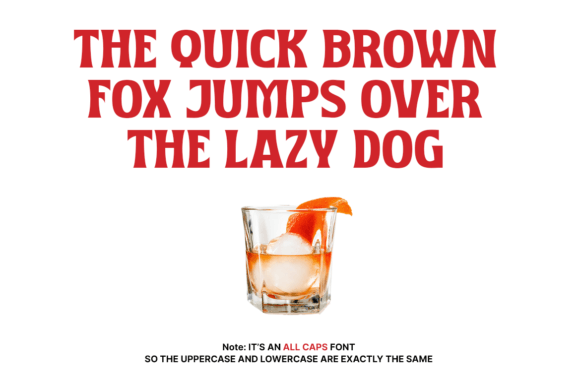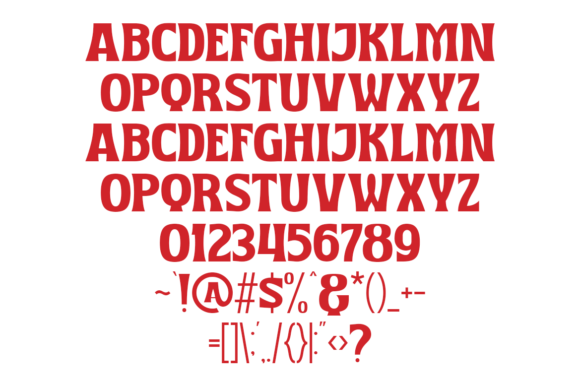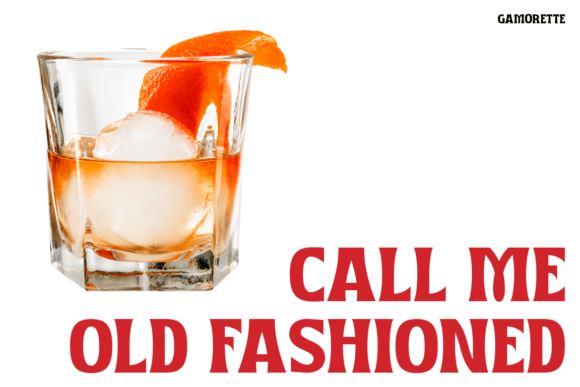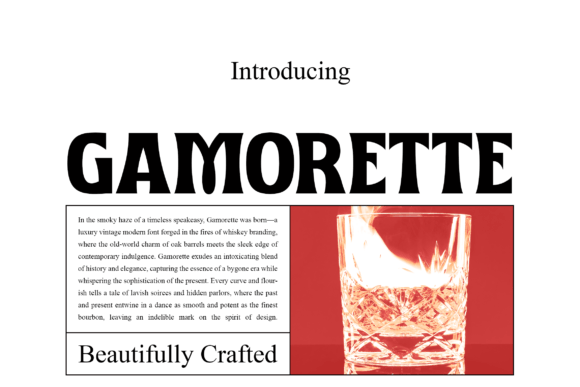
Gamorette Font: A Timeless Typeface for Sophisticated Designs
Step back in time with a typeface that blends the sophistication of classic whiskey labels with the sleek, modern aesthetics of today. Gamorette captures the essence of vintage charm, bringing a touch of refined luxury to your designs. Perfect for premium branding, high-end packaging, and everything in between, this font is your go-to for creating a contemporary look with a nod to the past.
The Inspiration Behind Gamorette
Gamorette is more than just a font – it’s a journey through time. Inspired by the classic whiskey labels of the past, this typeface combines the elegance and sophistication of a bygone era with the modern sensibilities of today’s design world. The result is a unique blend of vintage charm and contemporary style that is sure to elevate any design project.
Craftsmanship and Elegance in Every Letter
With Gamorette, every letter tells a story of craftsmanship, elegance, and timeless style – just like a fine whiskey. The font’s intricate details and carefully crafted lines evoke a sense of luxury and refinement, making it perfect for designers and crafters looking to add a touch of sophistication to their work.
Perfect for Premium Branding and Packaging
Gamorette is ideal for premium branding, high-end packaging, and any design project that requires a touch of elegance and sophistication. Whether you’re creating a luxury product label, a high-end advertisement, or a sophisticated website, this font is sure to impress. Its versatility and timeless style make it a valuable addition to any designer’s toolkit.
Key Features of Gamorette Font
• Unique blend of vintage and modern styles: Gamorette combines the best of both worlds, bringing together the sophistication of classic whiskey labels with the sleek, modern aesthetics of today.
• Elegant and refined design: With its intricate details and carefully crafted lines, Gamorette is the perfect choice for designers looking to add a touch of luxury to their work.
• Perfect for premium branding and packaging: Gamorette is ideal for high-end design projects that require a touch of elegance and sophistication.
• Timeless style: This font’s unique blend of vintage and modern styles ensures that it will remain a valuable design asset for years to come.
How to Use Gamorette in Your Designs
• Pair it with a modern sans-serif font: Combining Gamorette with a modern sans-serif font creates a striking contrast that adds visual interest to your design.
• Use it for headlines and titles: Gamorette’s elegant design makes it perfect for headlines and titles, where it can add a touch of sophistication and luxury.
• Experiment with different colors and textures: Gamorette’s versatility allows it to be used with a wide range of colors and textures, so don’t be afraid to experiment and find the perfect combination for your design.
Gamorette is a timeless typeface that brings a touch of refined luxury to any design project. With its unique blend of vintage charm and modern style, this font is perfect for designers and crafters looking to create sophisticated, high-end designs. Whether you’re working on a premium branding project, high-end packaging, or simply looking for a font that will elevate your design work, Gamorette is the perfect choice.